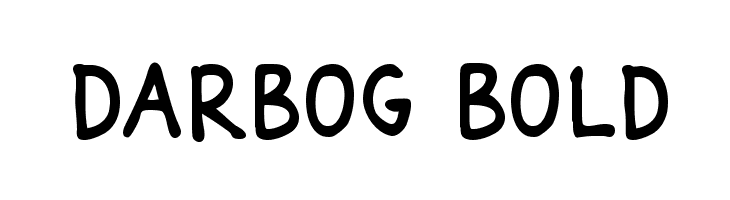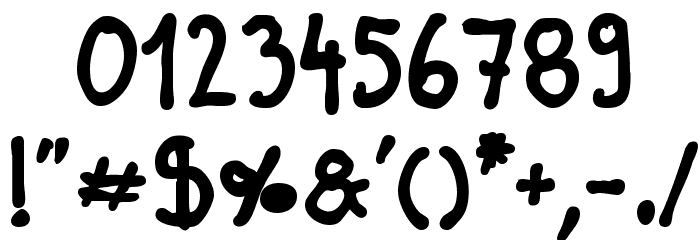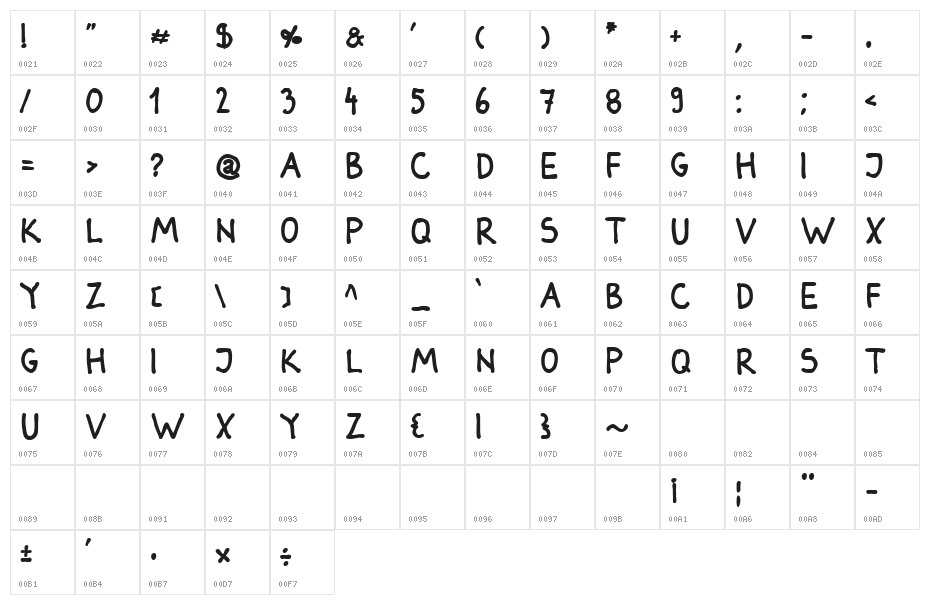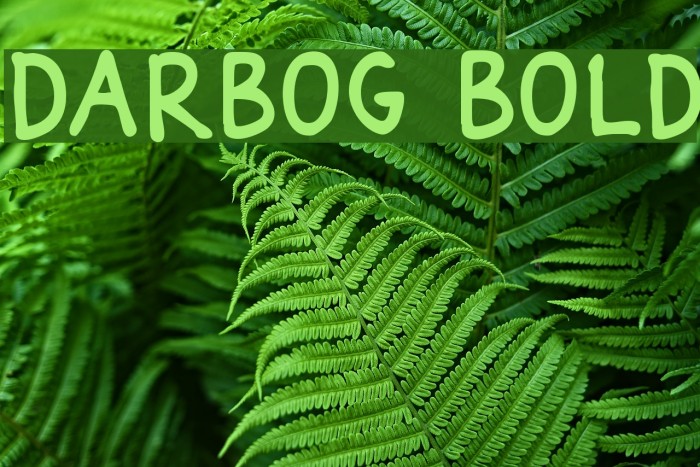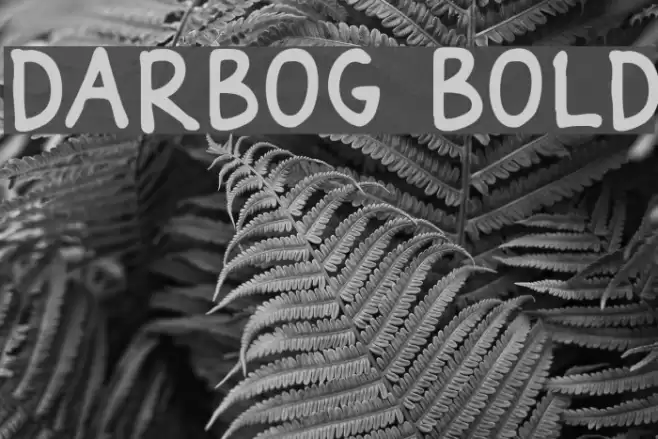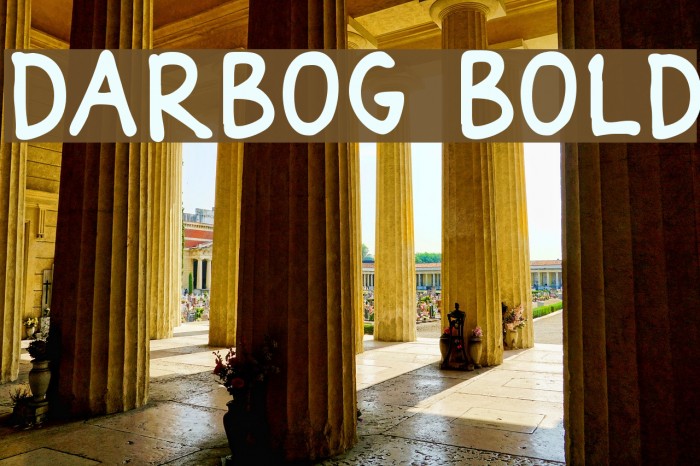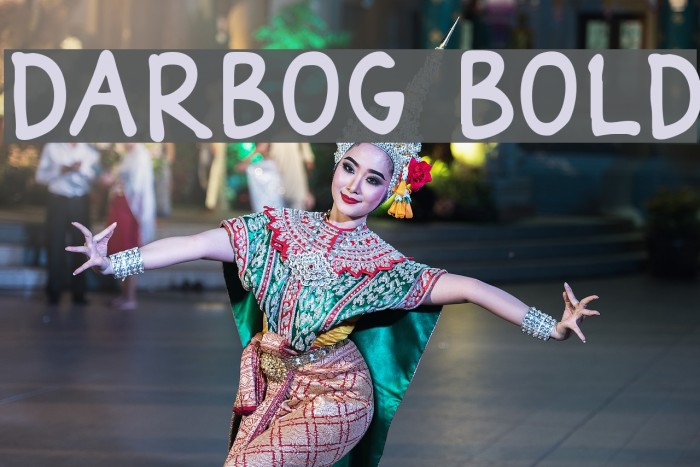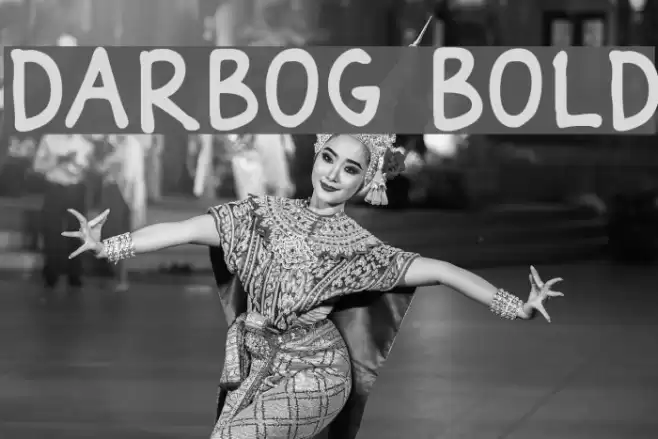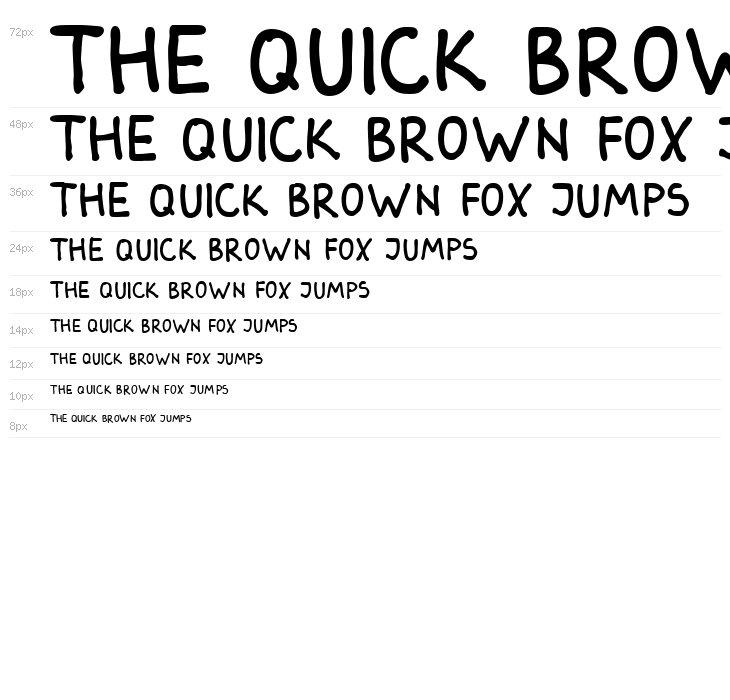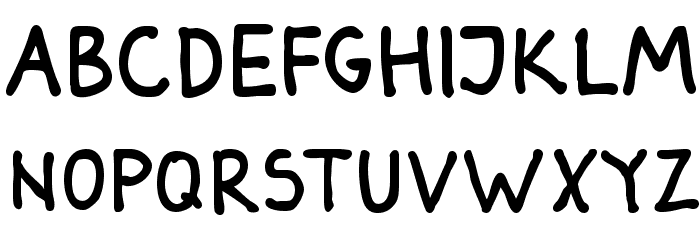
Darbog Bold Font
Darbog Bold Description
This font features a bold and playful handwritten style, characterized by its thick, rounded strokes and slightly irregular shapes. The letters have a casual and friendly appearance, making them suitable for informal and creative projects. The uppercase and lowercase letters maintain a consistent style, with a slight variation in height and width that adds to the font's charm. Numbers and special characters are designed with the same playful aesthetic, ensuring a cohesive look across all text elements. The overall impression is one of approachability and warmth, ideal for projects that require a personal touch.
| Proposed Projects | Ideal for children's books, greeting cards, playful branding, and casual invitations. |